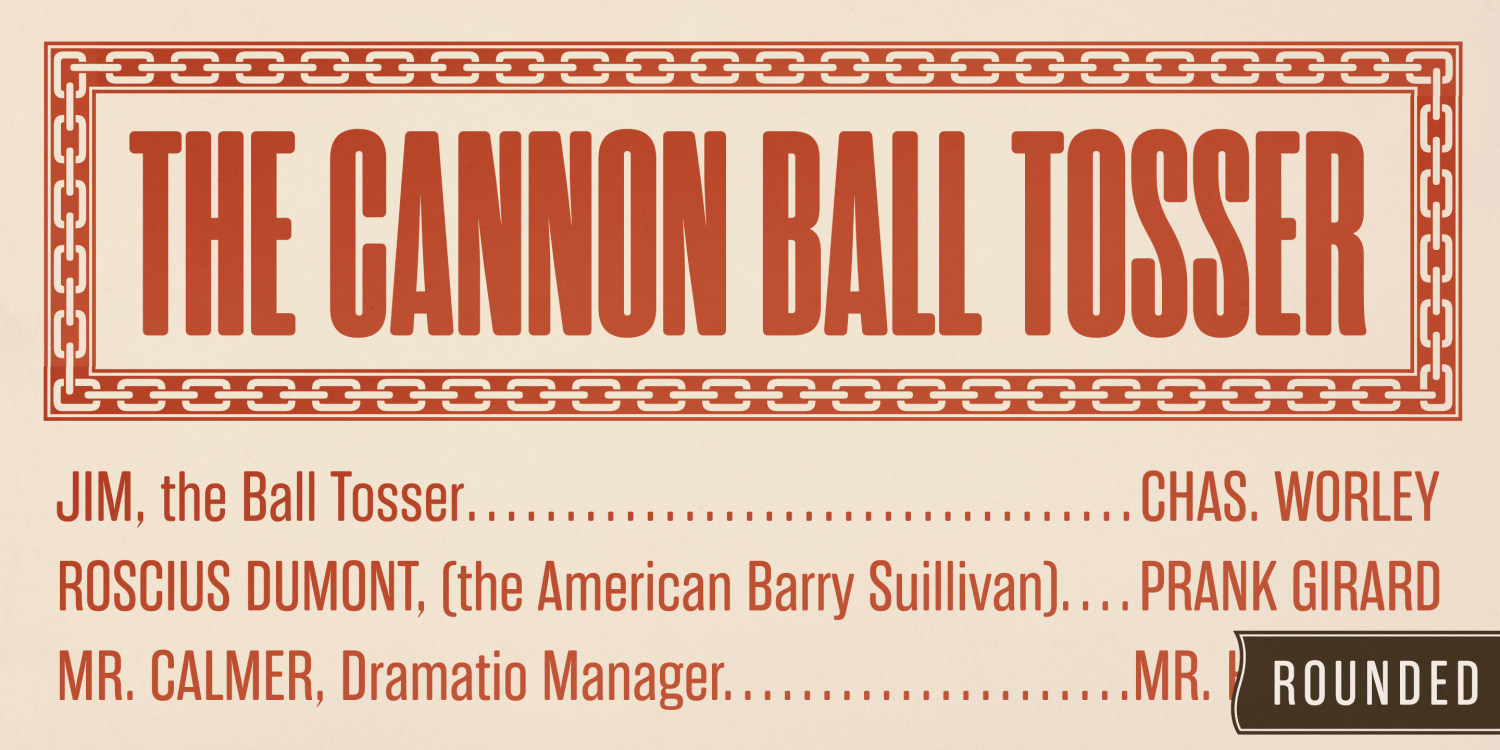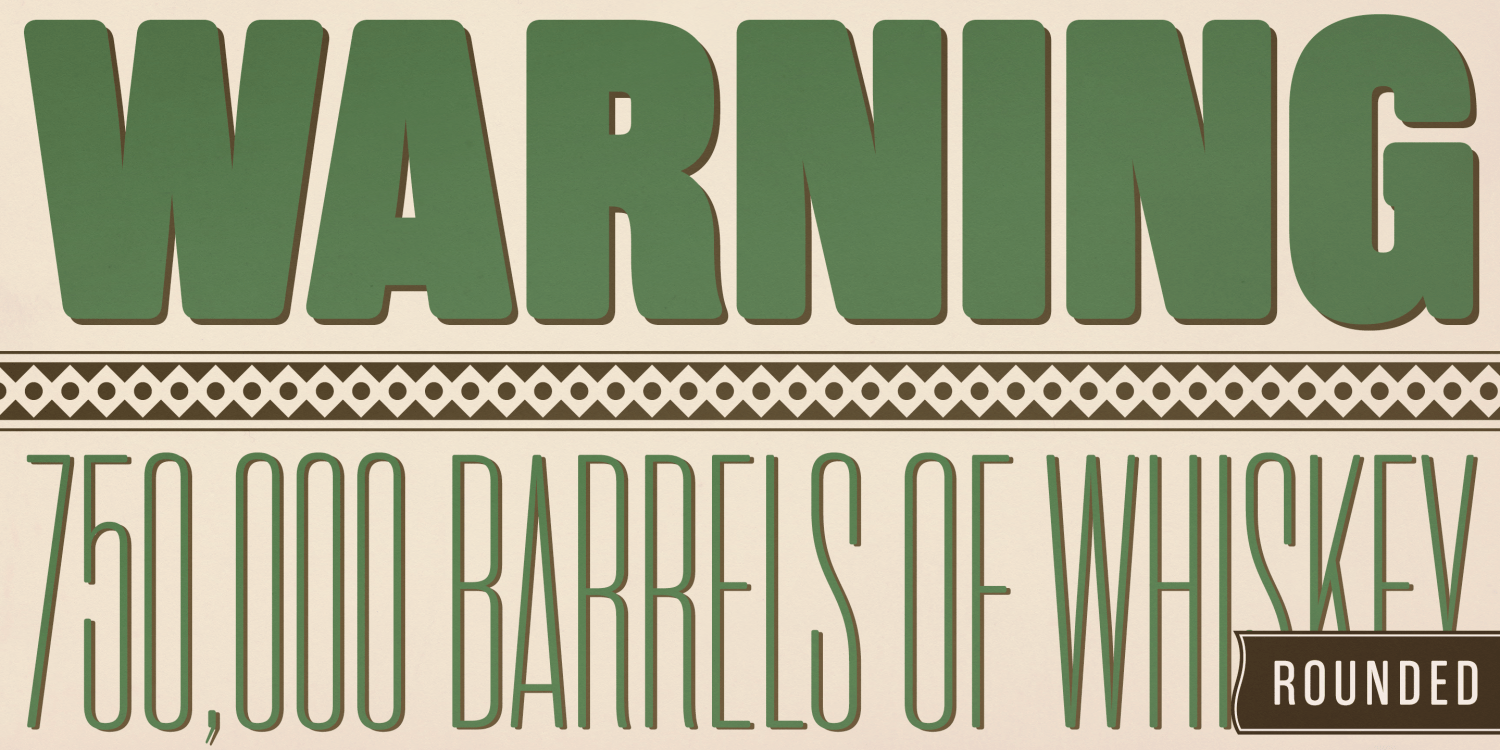
About Rama Gothic Rounded
Rama Gothic Rounded is an antiqued sans serif designed inspired by 1800s-style wood type. All glyphs had been designed carefully to be retro-looking of the old time and to fill all with nostalgia. This condensed font family with 42 styles will be the…